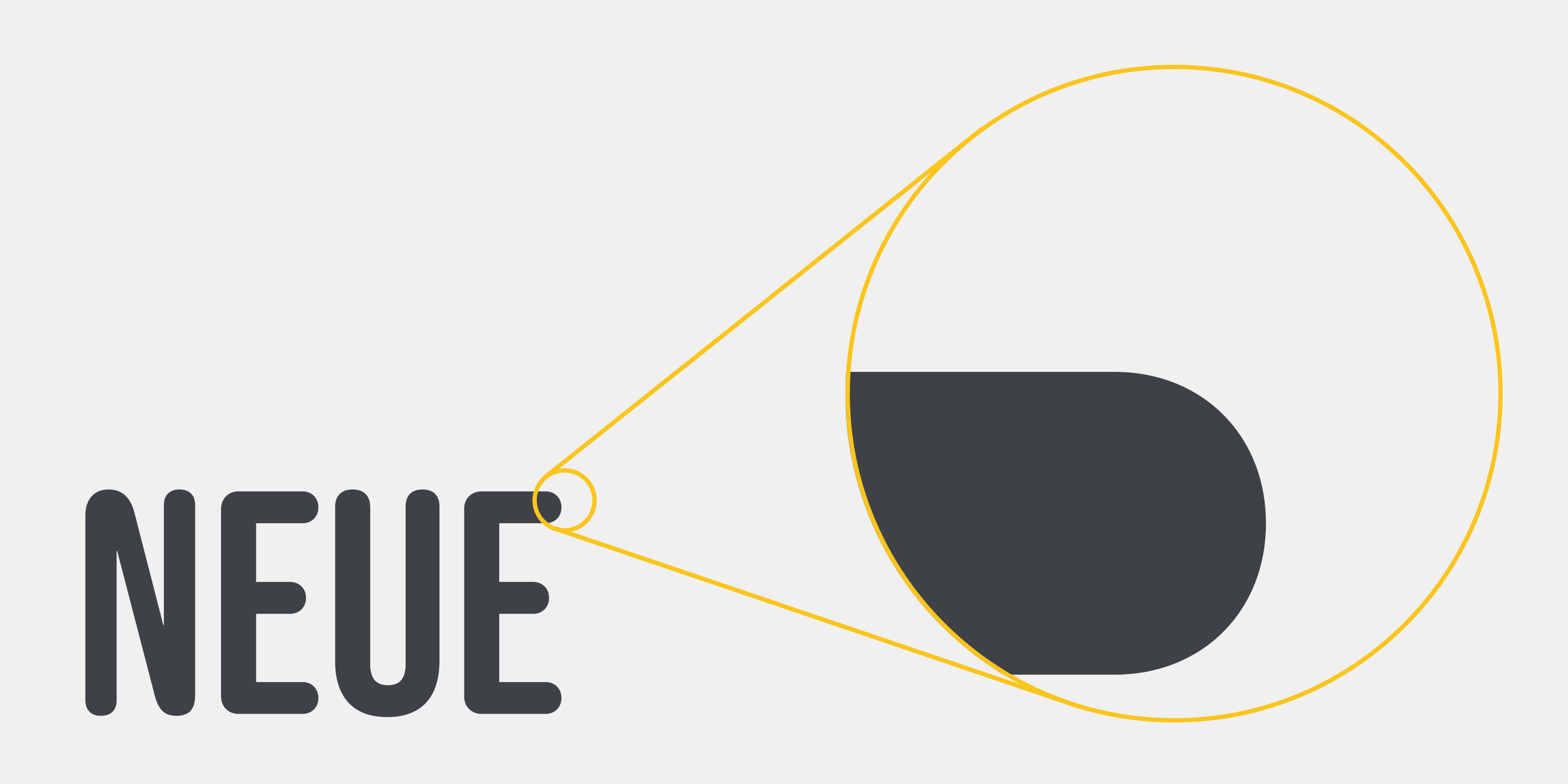
The Bebas Neue Rounded Font is an excellent choice for designs that demand a clean, modern, and highly approachable aesthetic, balancing strong visual presence with soft, welcoming curves. Imagine it gracing the headlines of contemporary advertising campaigns, adding a friendly yet impactful feel to mobile app interfaces, or bringing a fresh, optimistic vibe to sports branding and activewear. It's also perfectly suited for captivating social media graphics, sleek product packaging, and any project where you want to convey a sense of modern efficiency, comfort, and user-friendliness. With its distinct rounded terminals and clear, tall forms, the Bebas Neue Rounded Font is ideal for projects that aim for visual warmth and a memorable impression.
What makes the Bebas Neue Rounded Font truly exciting is its remarkable ability to combine the clarity and impact of the original Bebas Neue with a softer, more amiable touch. The rounded edges provide a gentle aesthetic that is both modern and incredibly versatile, making it suitable for a wide range of applications from digital displays to print media. This font excels at creating a harmonious and cohesive visual experience, ensuring your message is not just seen, but felt with a sense of ease and familiarity. It injects a feeling of subtle sophistication and accessibility into your designs, making it a reliable choice for establishing a trustworthy and contemporary brand presence. The Bebas Neue Rounded Font Free Download offers a fantastic opportunity to infuse your projects with this distinctive character.
The Bebas Neue Rounded Font family is typically designed to offer a comprehensive range of weights, maximizing its adaptability for diverse design requirements. While specific family members can vary, you can often expect to find:
Bebas Neue Rounded Thin
Bebas Neue Rounded Light
Bebas Neue Rounded Book (or Regular, a standard weight)
Bebas Neue Rounded Bold
Bebas Neue Rounded Black
These variations provide flexibility for different design applications, allowing you to create engaging visual hierarchies and maintain a consistent, clear, and friendly aesthetic across all your projects.